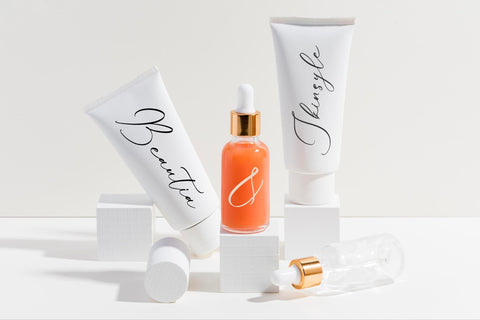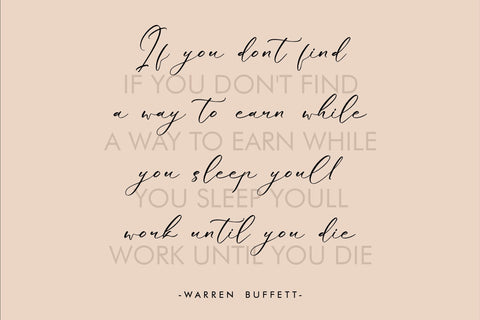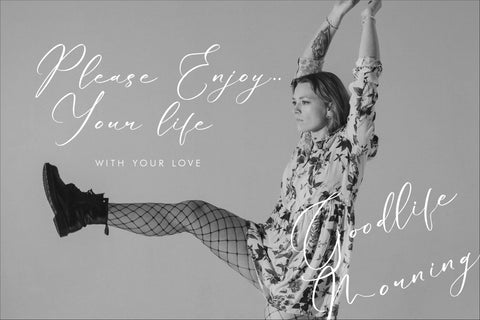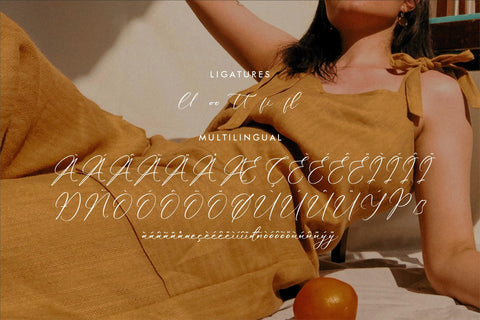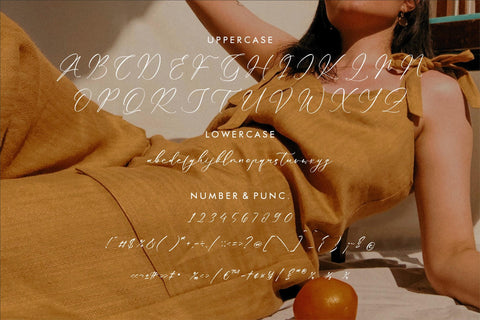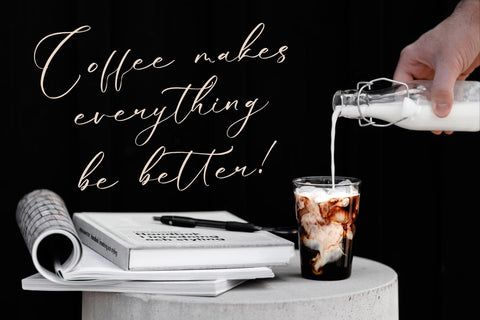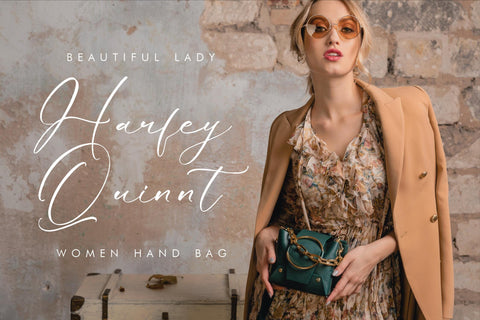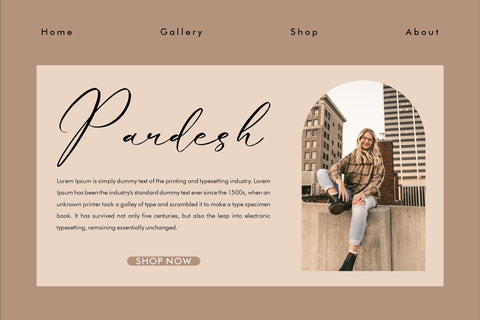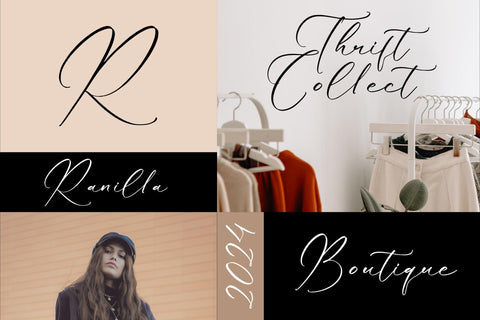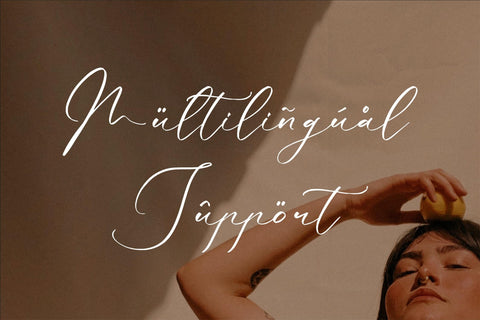
Qlouchester Westfild - Luxury Script Font
Proudly present Qlouchester Westfild - Luxury Script Font , created by Storytype,
A luxury script that has own unique style & modern look.